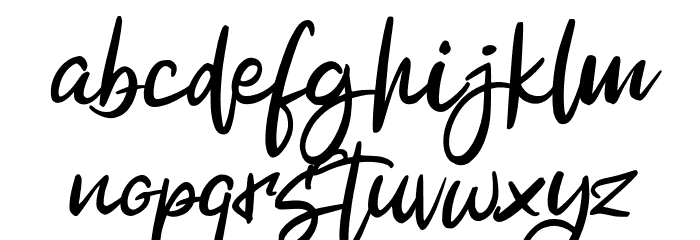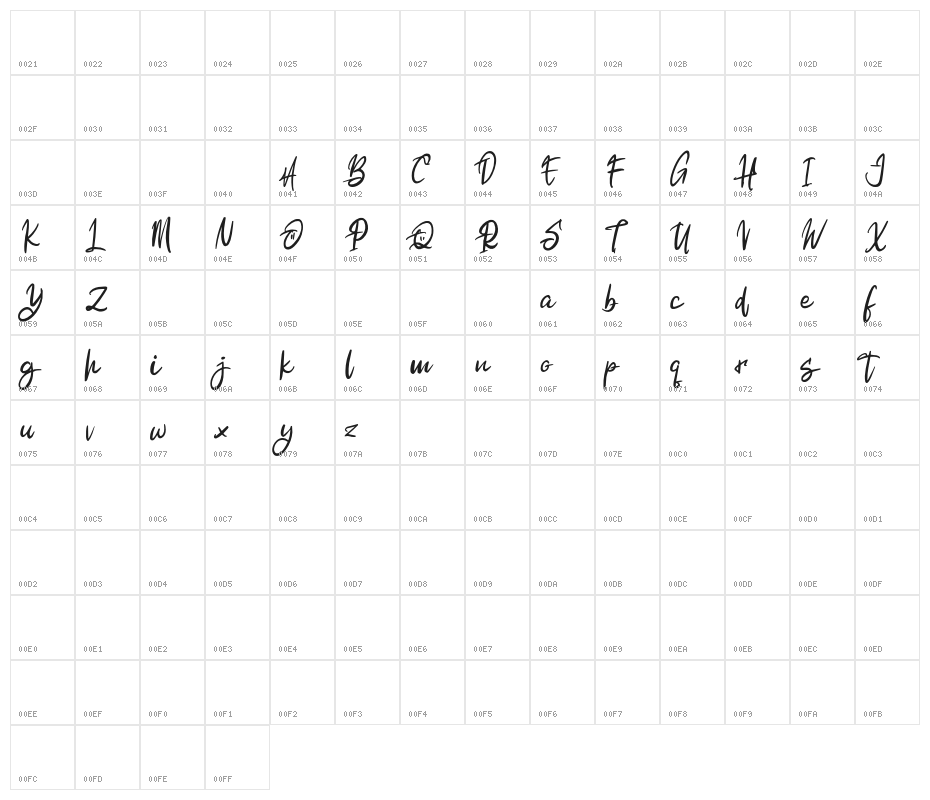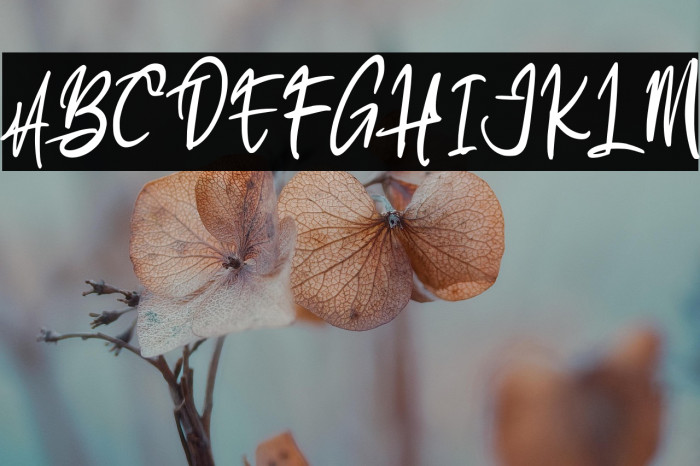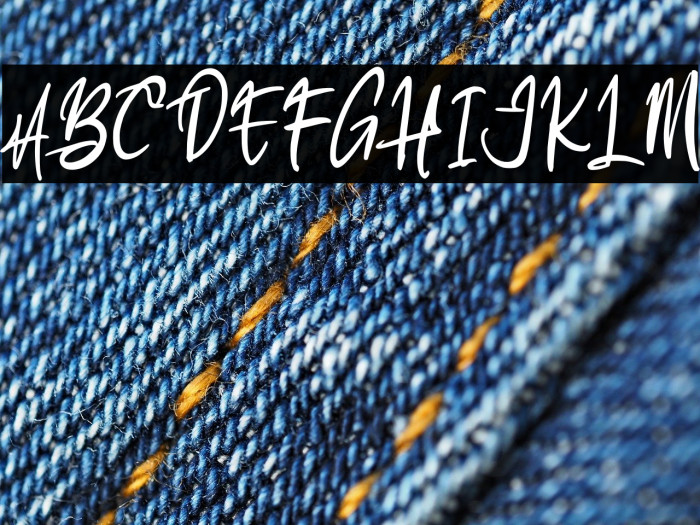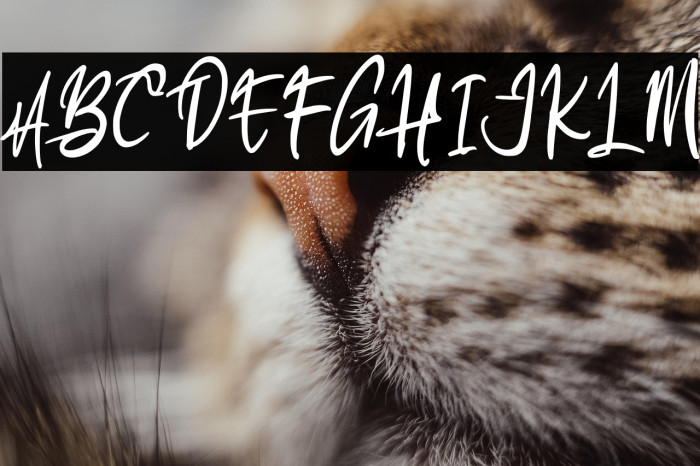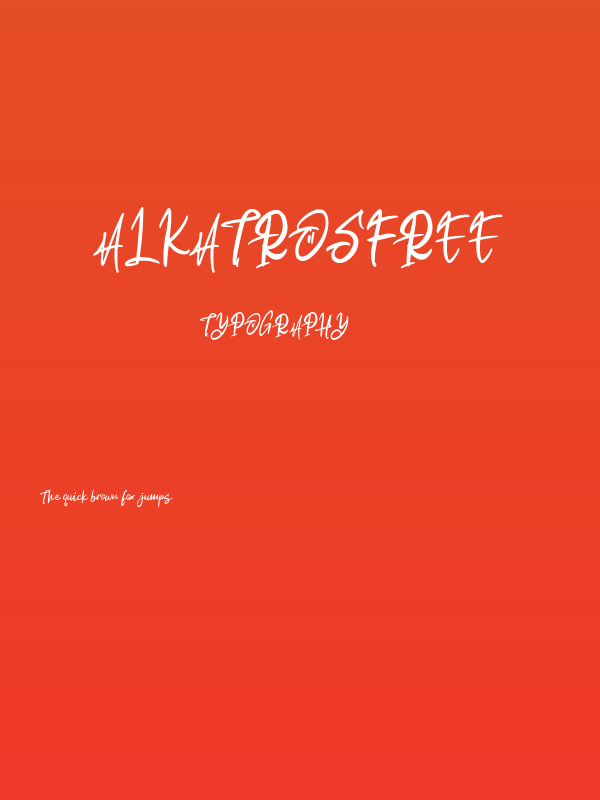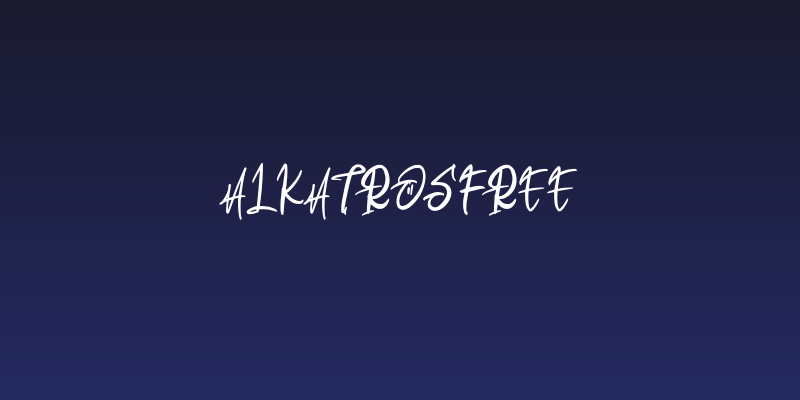
AlkatrosFREE Font
This font features a dynamic and expressive handwritten style, characterized by its fluid and cursive letterforms. The uppercase letters are bold and slightly slanted, giving a sense of movement and energy. The lowercase letters maintain a consistent flow, with some letters extending below the baseline, adding to the font's casual and artistic appeal. The strokes are thick and confident, with a medium contrast that enhances readability while preserving the font's decorative nature. This style is perfect for projects that require a personal touch or a creative flair.
A bold, cursive handwritten font with dynamic and expressive strokes.
- Proposed Projects: Ideal for branding, invitations, greeting cards, and creative projects that require a personal and artistic touch.
- Category: Handwritten
- Use Case: Logos, Headlines, Invitations